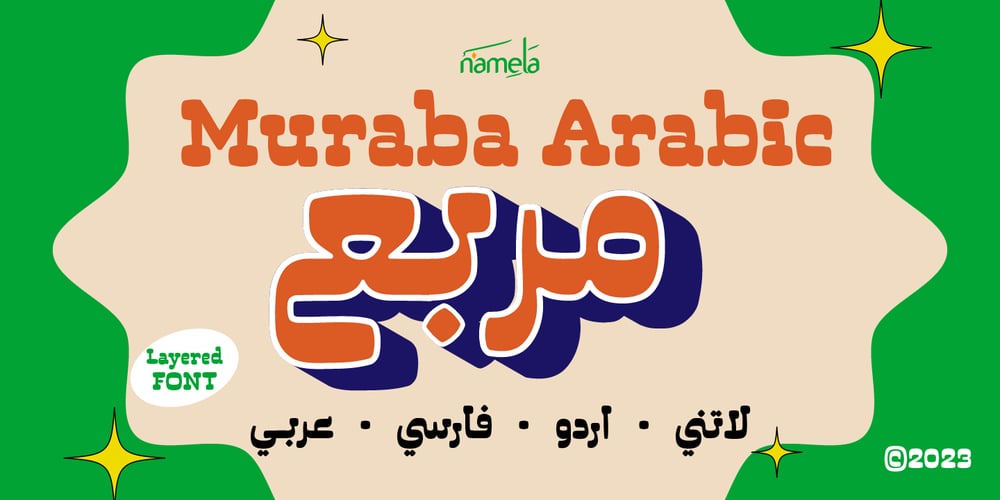
Muraba Arabic
Muraba Arabic font
Muraba Arabic Font Family was designed by Nur Syamsi, Bustanul Arifin and published by NamelaType. Muraba Arabic contains 3 styles and family package options. Muraba Arabic is the sibling font of Muraba, with the addition of Arabic glyphs; Arabic, Persian, Urdu, Kurdish, and Jawi (Pegon).Muraba Arabic font is a one-of-a-kind, bold vintage serif display typeface, defined by its distinctively thick, squared-off serifs that offer decorative flair. This versatile typeface is ideal for various applications, including logos, headers, and display text